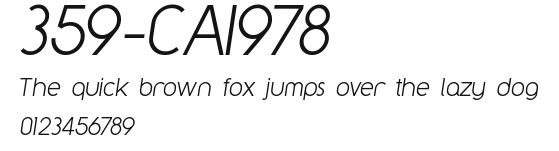
359-CAI978 Preview
• Character Count: 165
About 359-CAI978.ttf
359-CAI978.ttf is a modern, elegant sans-serif font designed for ultimate readability and visual harmony. Perfect for branding, headlines, web design, and print materials.